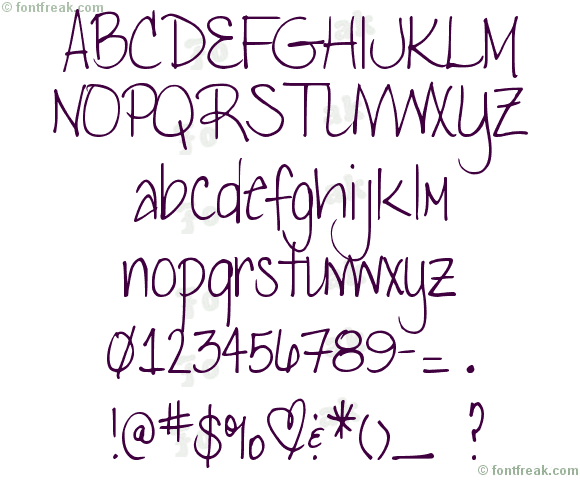
DJB LENA
DJB LENA — Character Map
About DJB LENA
DJB LENA is a delightful handwritten typeface designed by Darcy Baldwin in 2007. This font falls into the script category, exuding a warm and inviting charm that captures the essence of personal touch. The visual characteristics of DJB LENA are defined by its smooth strokes and varying weights, which create a lively, organic flow. The letters are well-spaced, allowing for a clear and legible appearance while still maintaining a casual elegance. Decorative elements, such as playful curves and whimsical swirls, enhance its unique personality, making it a standout choice for various design projects.
The versatility of DJB LENA makes it ideal for numerous applications. It shines in wedding invitations, where its romantic flair can beautifully convey heartfelt sentiments. This font is also perfect for crafting eye-catching greeting cards, adding a personal touch that resonates with recipients. Additionally, DJB LENA is well-suited for restaurant menus, where its friendly vibe can evoke a welcoming atmosphere, enticing diners to explore the offerings. Small business owners and content creators can leverage this font for branding materials, including logos and promotional flyers, where a distinct and friendly identity is essential.